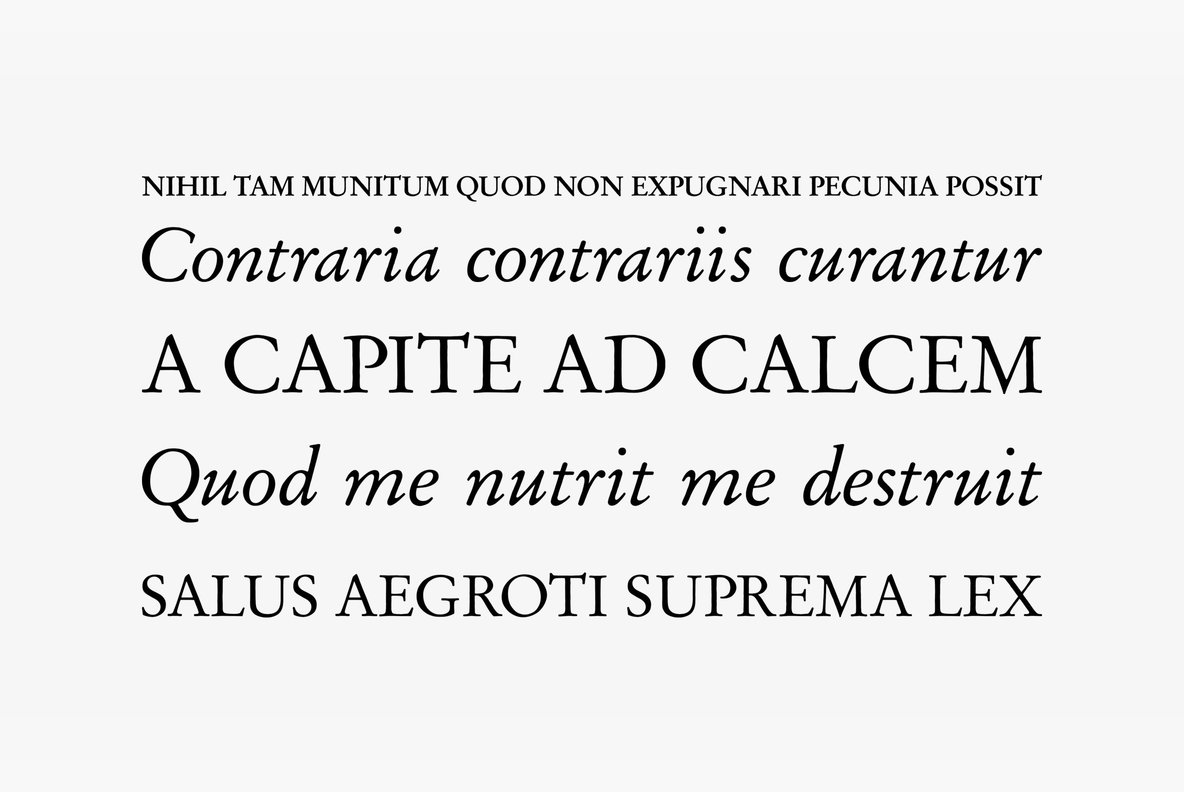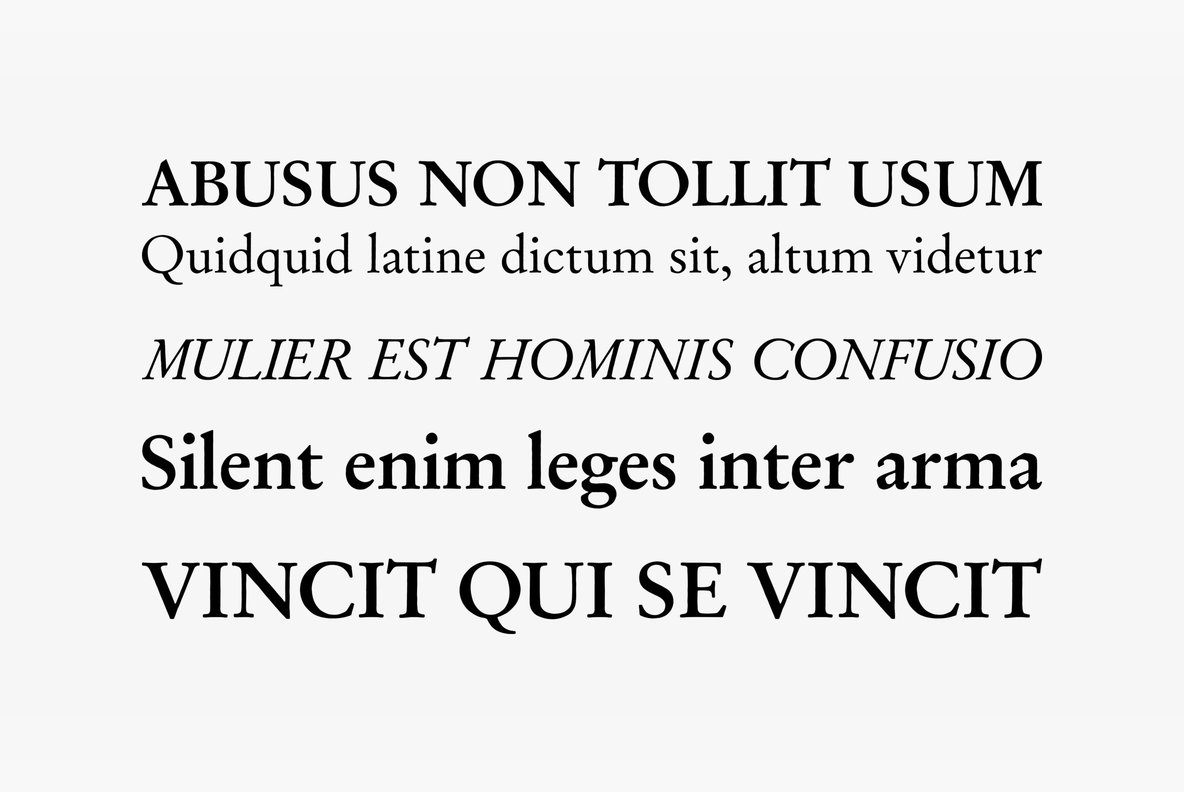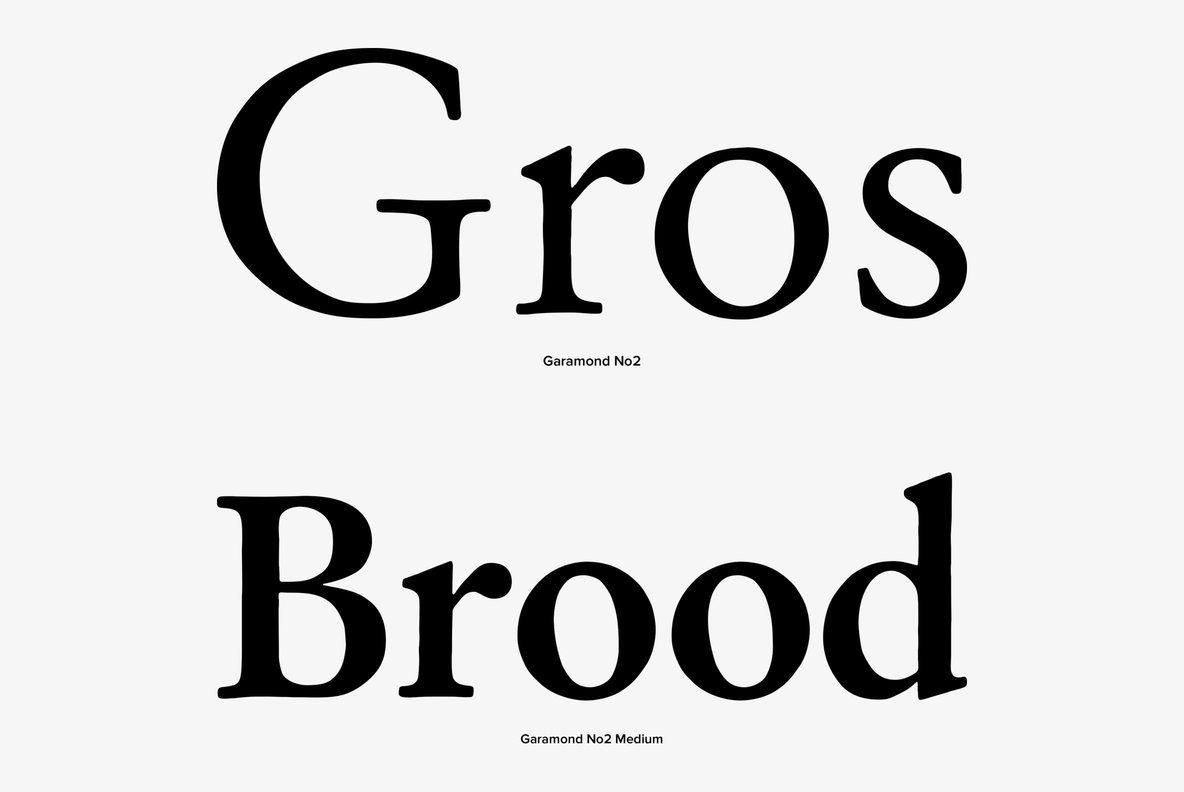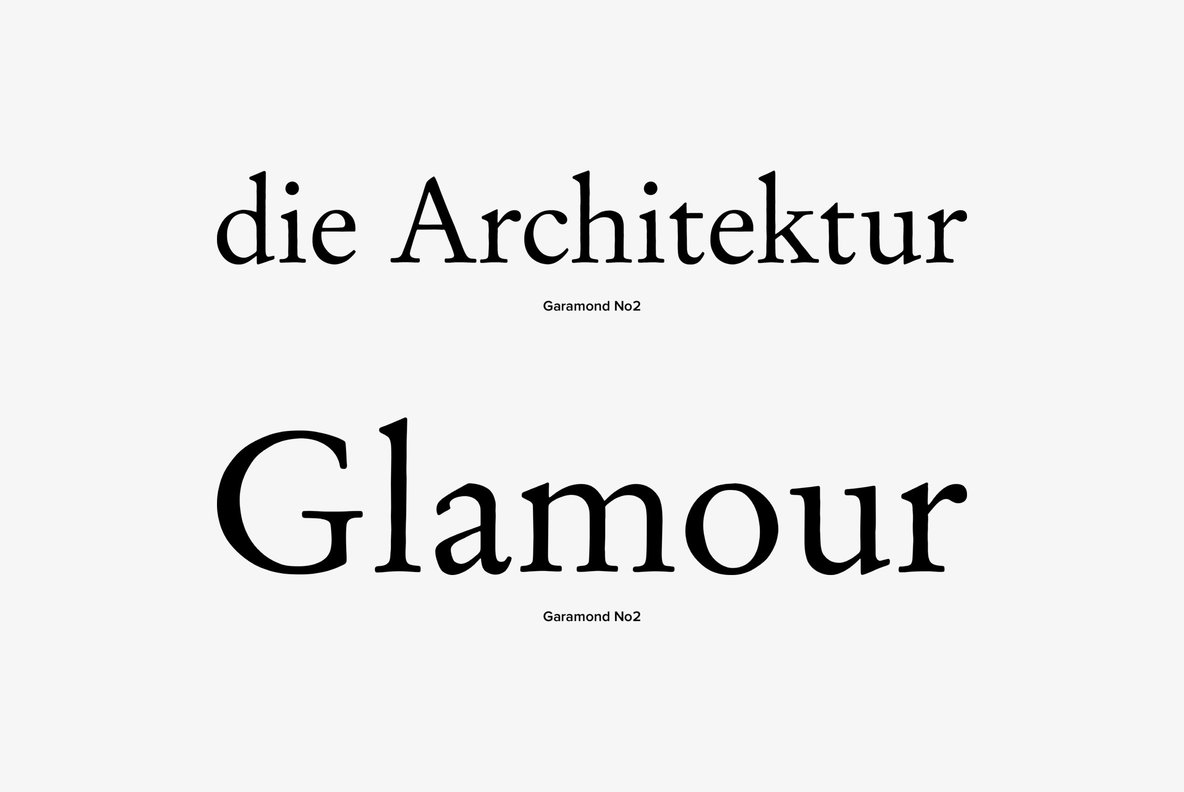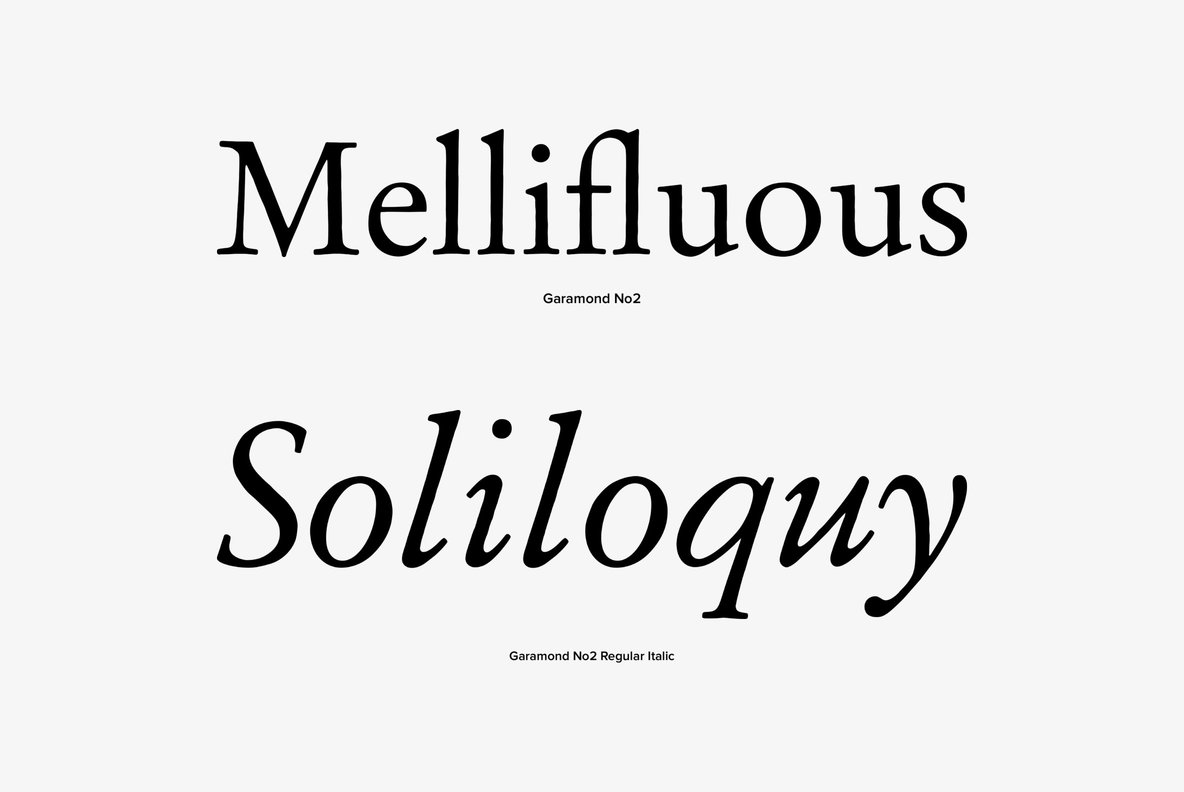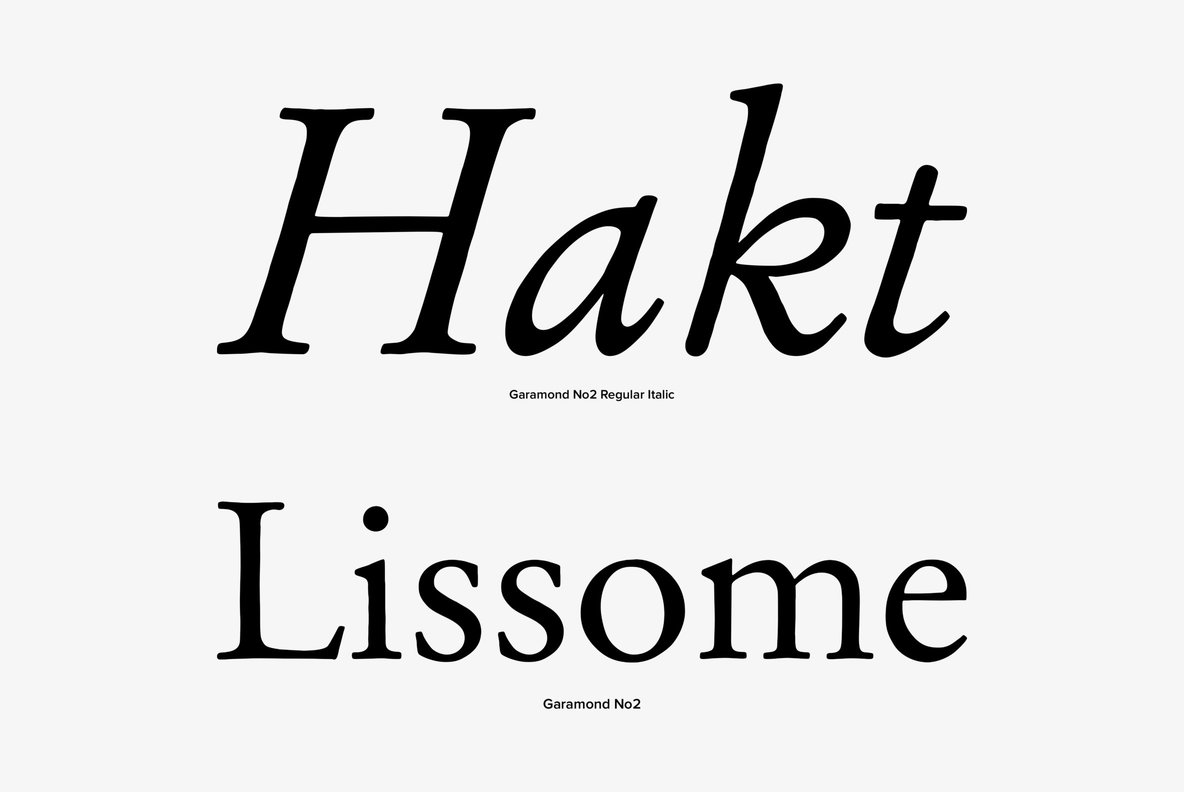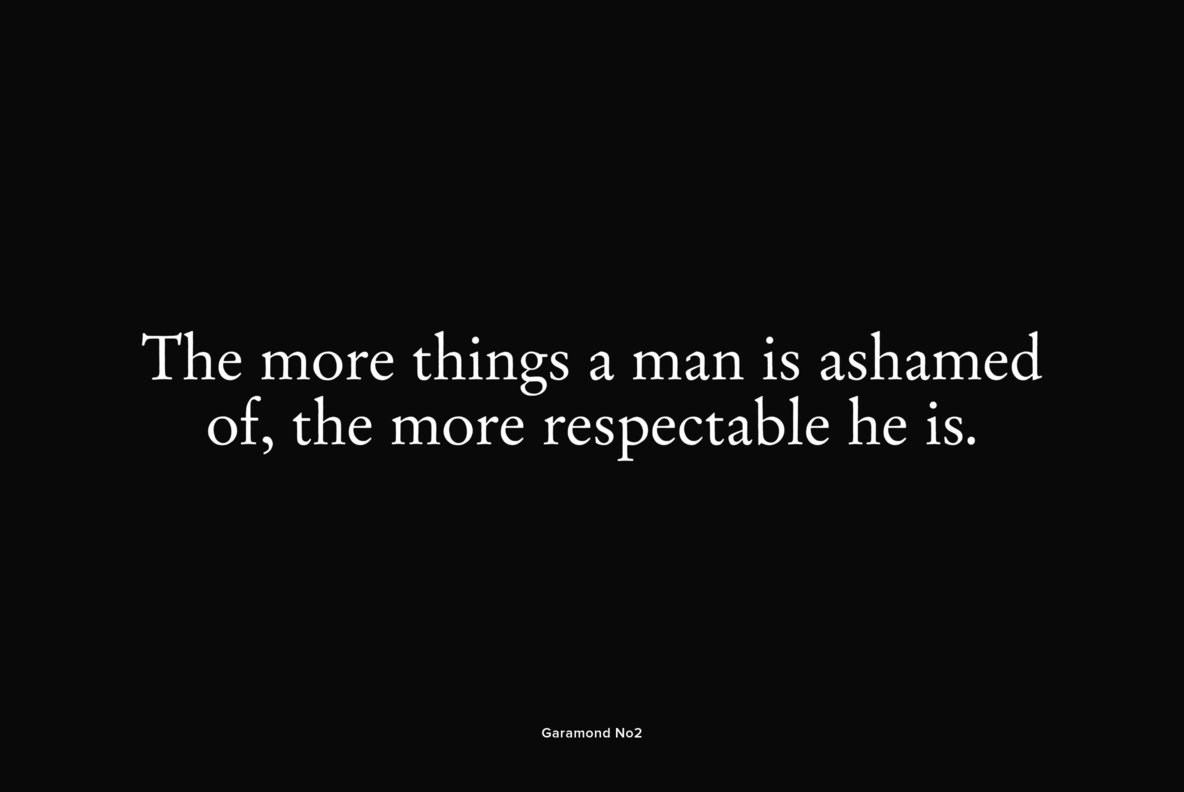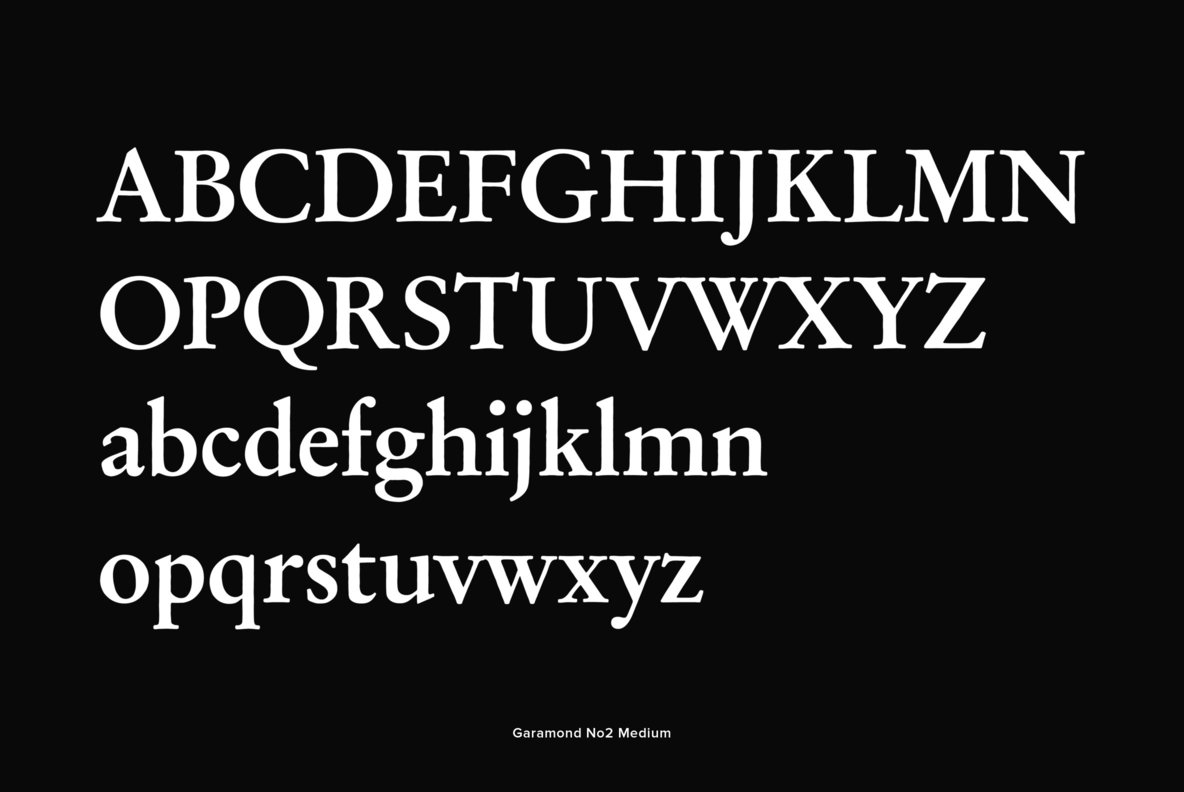
Garamond No 2 is a classic and elegant serif font, originally designed by Claude Garamond in 1927. Garamond No 2 contains West, East, Turkish, Baltic, Romanian language support.